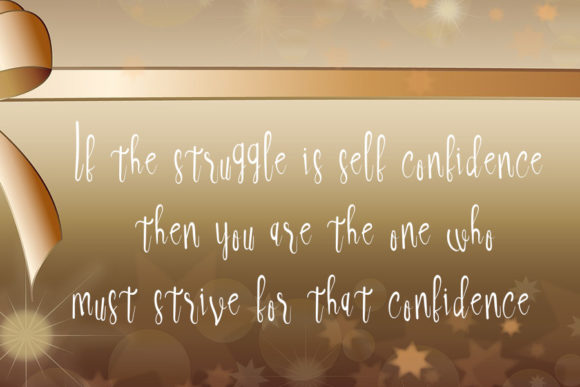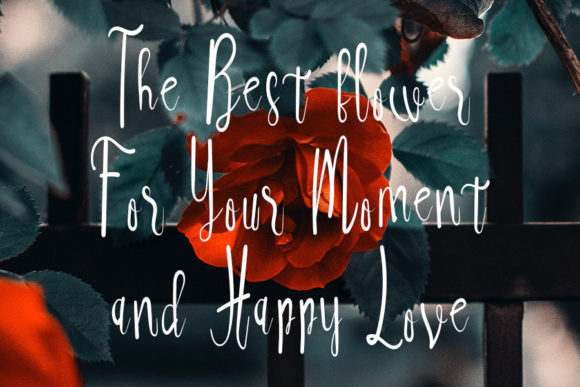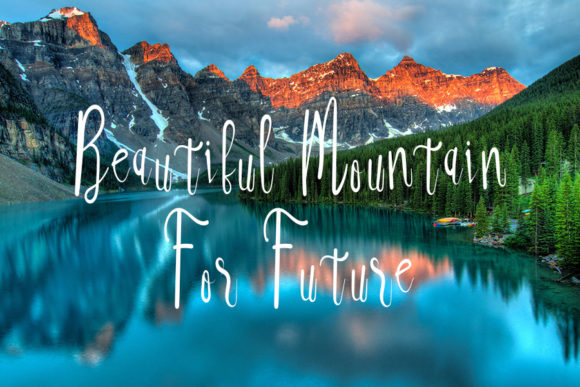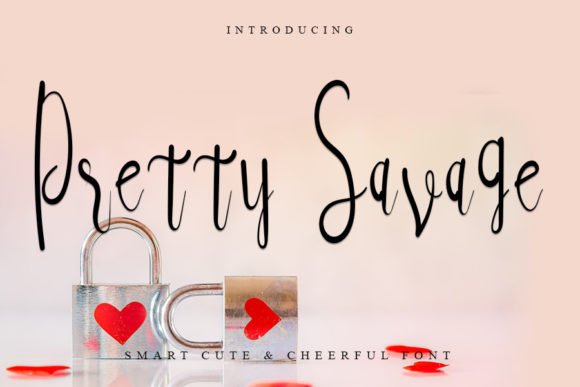
Introduction to Pretty Savage Font
Pretty Savage is a sweet and whimsical handwritten font.
Its distinct and well balanced letters make this font a masterpiece This font is PUA encoded which means you can access all of the glyphs and swashes with ease.
Pretty Savage Font offers exceptional quality and versatility, making it a valuable addition to your design toolkit. Whether you’re creating for personal projects or commercial use, Pretty Savage Font delivers professional results.